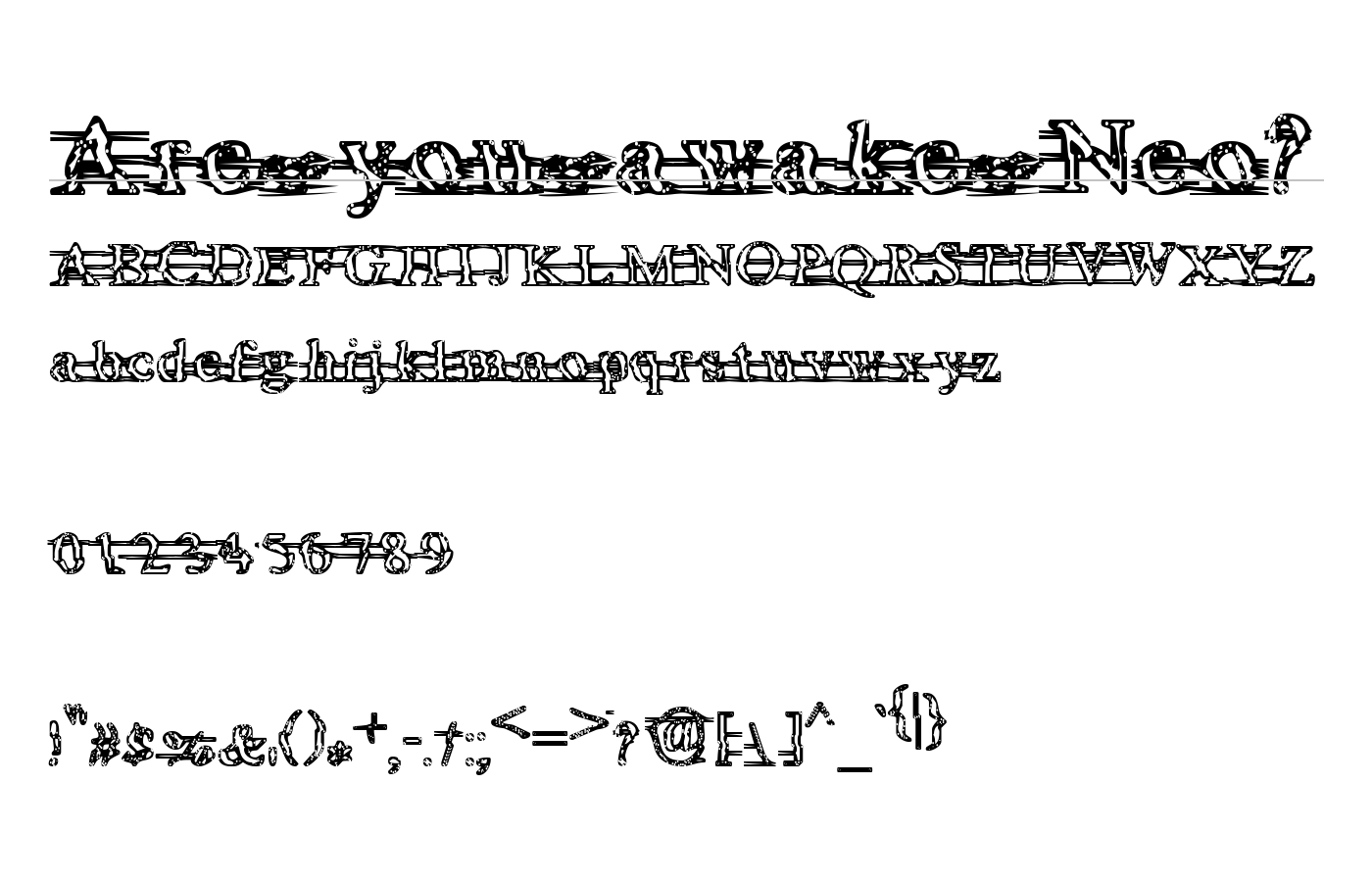
Are you awake Neo? is a highly decorative serif font with a distressed, fragmented style that gives it an edgy, chaotic personality. Its medium weight and uneven texture make it ideal for bold, artistic projects where a sense of tension or disruption is desired, such as posters or album covers. This font adds a striking, unconventional look that stands out in creative branding and expressive headlines.
Are you awake Neo? Font